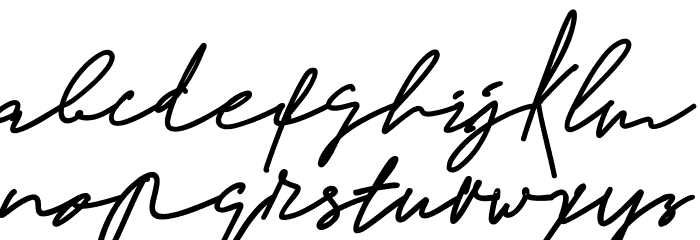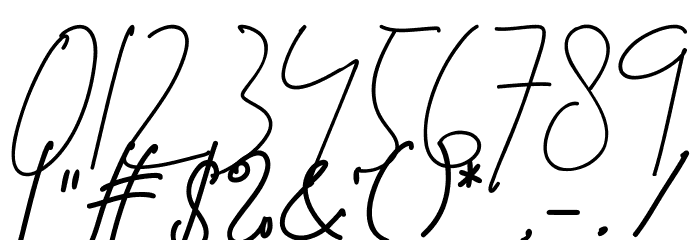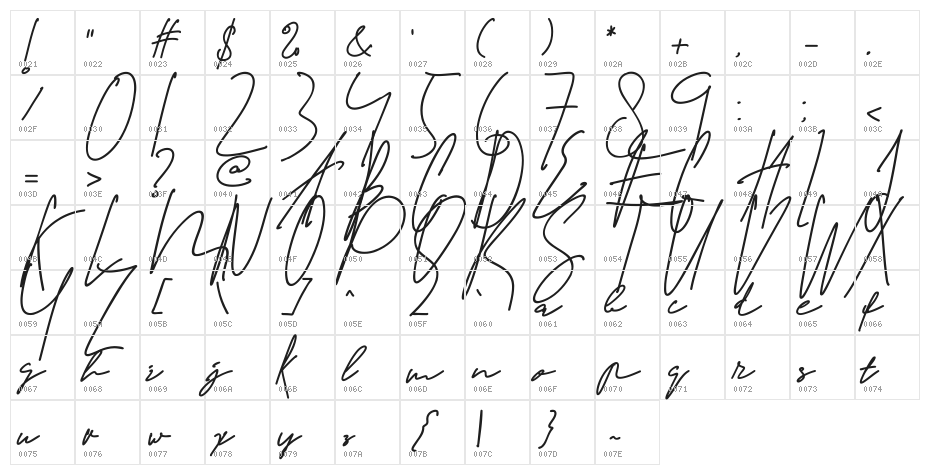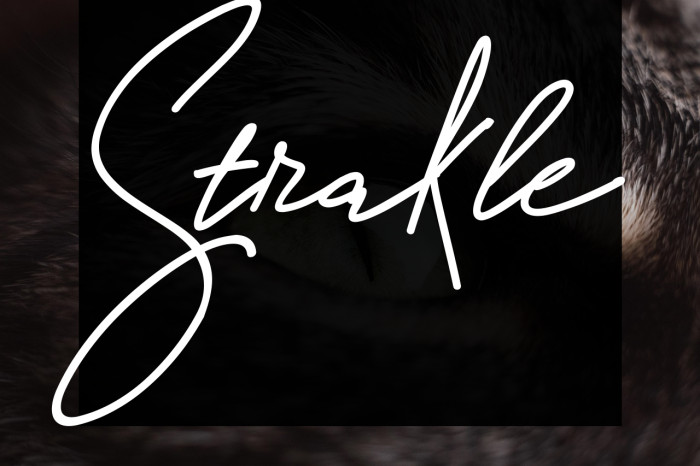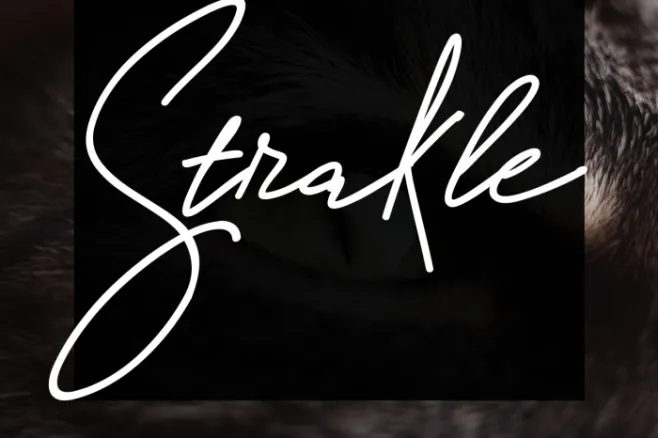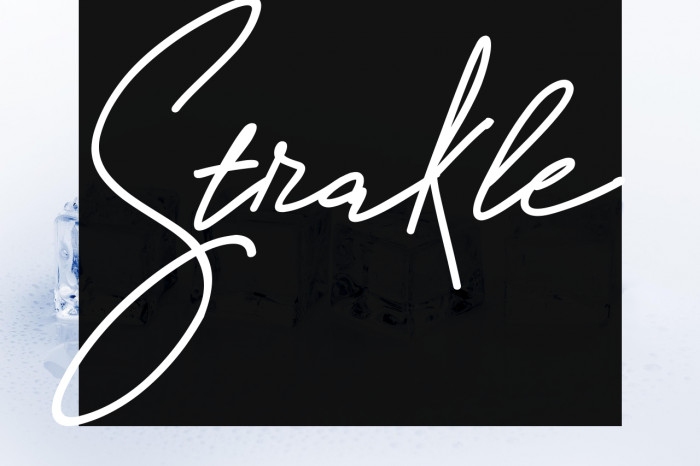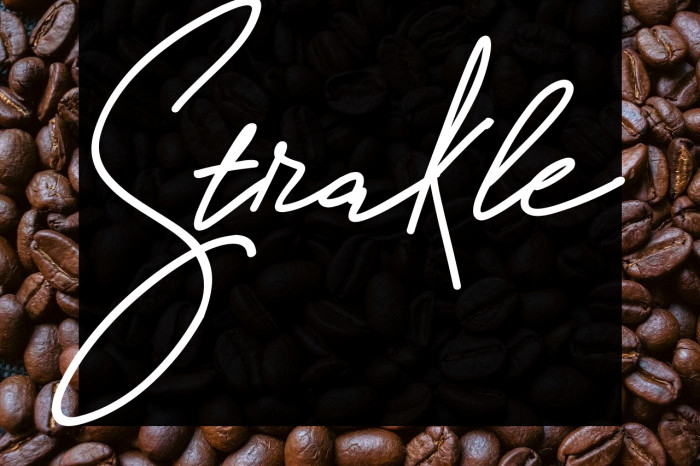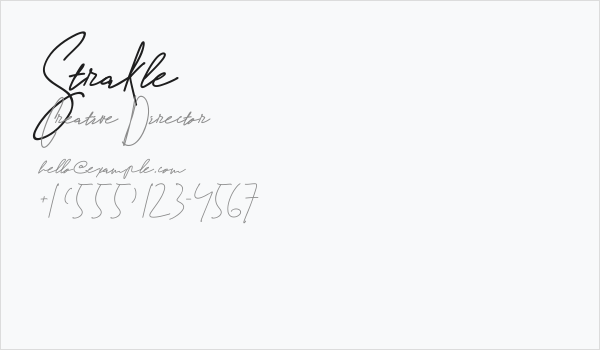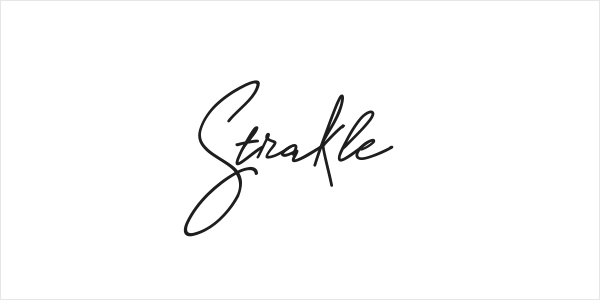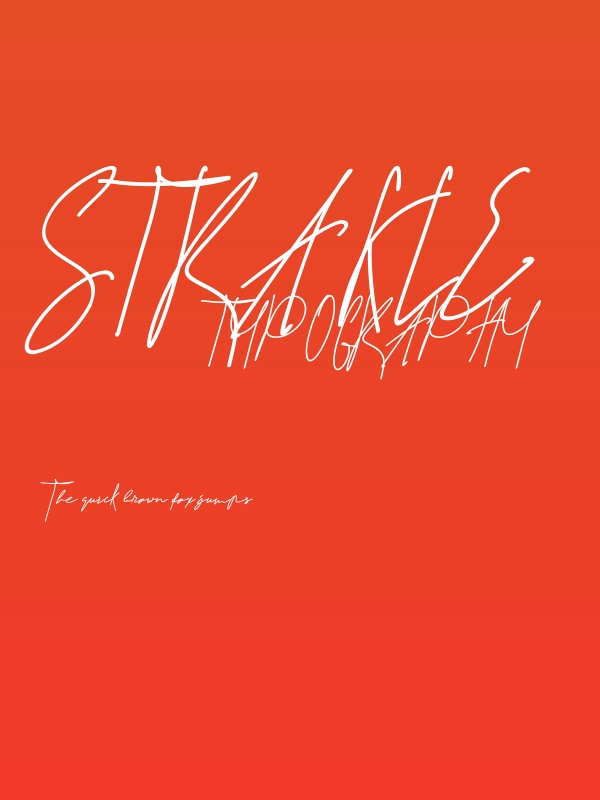
Strakle Font
This font features a dynamic and fluid handwritten style, characterized by its elegant and flowing strokes. The uppercase letters are tall and slender, with a slight slant that adds a sense of motion and grace. The lowercase letters maintain a consistent rhythm, with smooth curves and loops that enhance its cursive nature. Numbers and special characters are crafted with the same attention to detail, ensuring a cohesive appearance across all elements. This font exudes a sense of sophistication and creativity, making it ideal for projects that require a personal touch.
A fluid and elegant handwritten font with a cursive style.
- Proposed Projects: Ideal for wedding invitations, personal branding, greeting cards, and artistic projects.
- Use Case: Logos, Invitations, Artistic projects